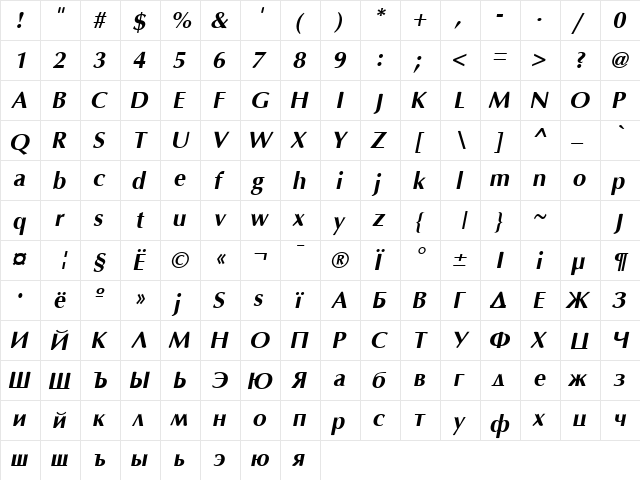
AGOpus Bold Oblique
Design Context for AGOpus Typeface
AGOpus takes a measured approach to typography — its balanced proportions and neutral character make it a reliable workhorse for both digital and print work. The slanted form adds forward momentum and visual energy. Its bold stroke weight gives it real presence on the page.
Pro Tip: Try AGOpus for annotation and caption copy alongside an upright companion — the contrast in angle creates a dynamic but ordered typographic system.